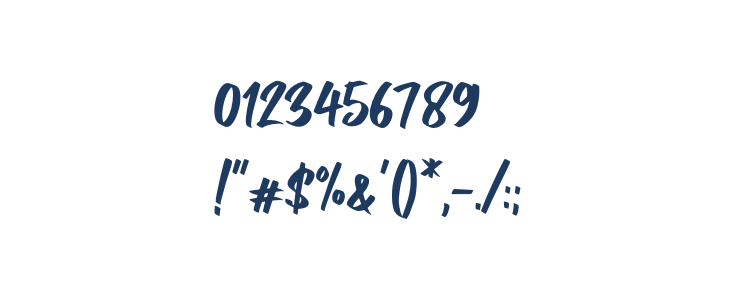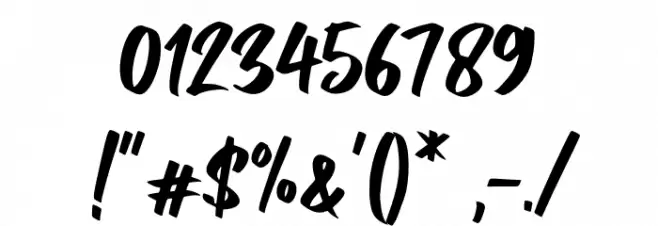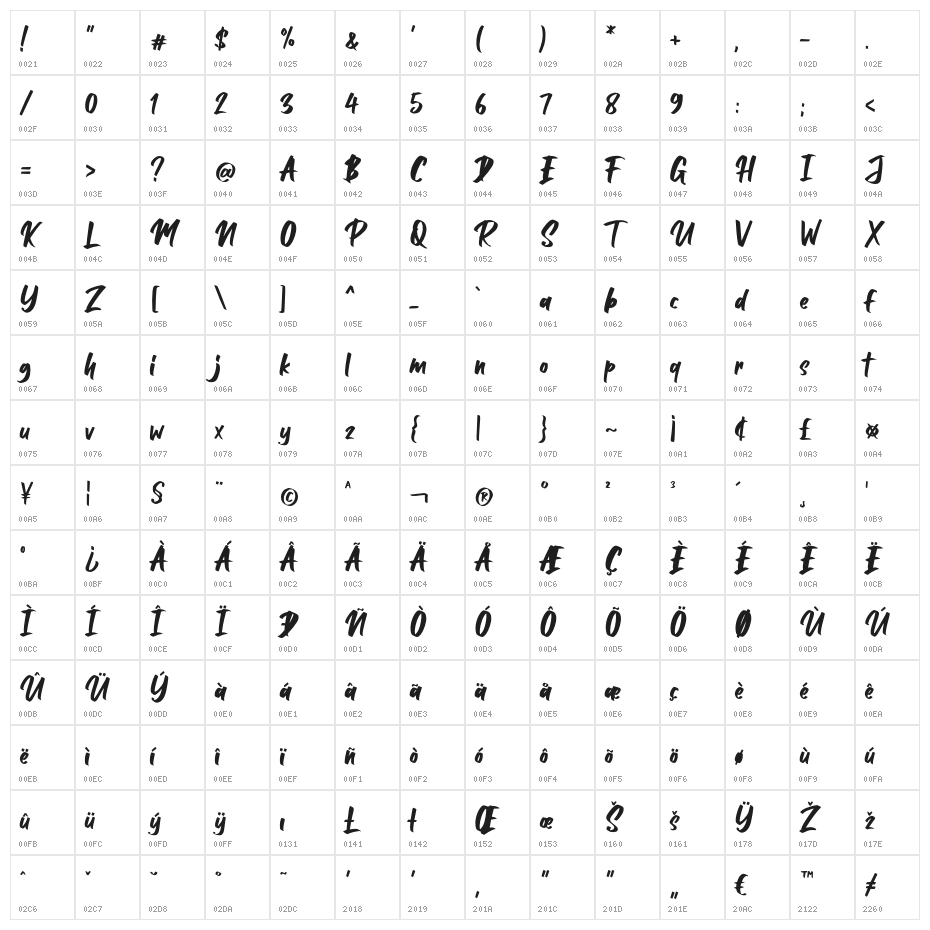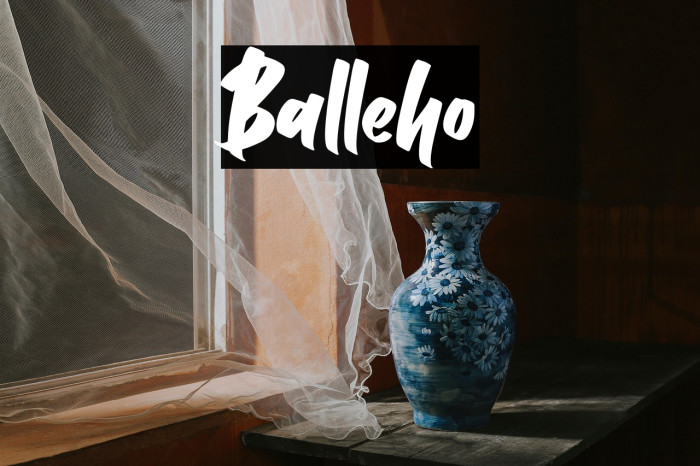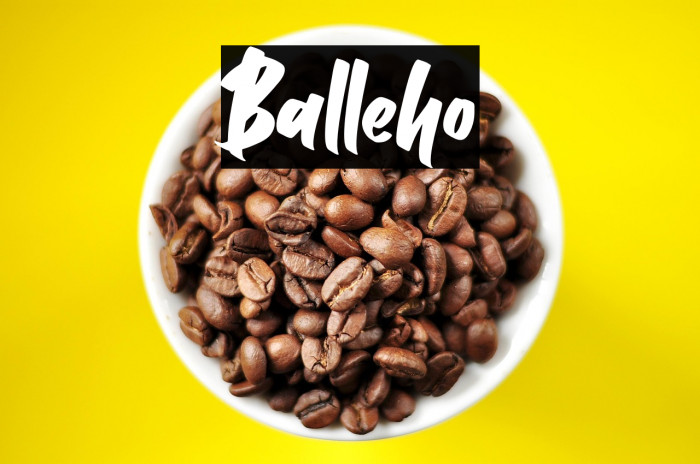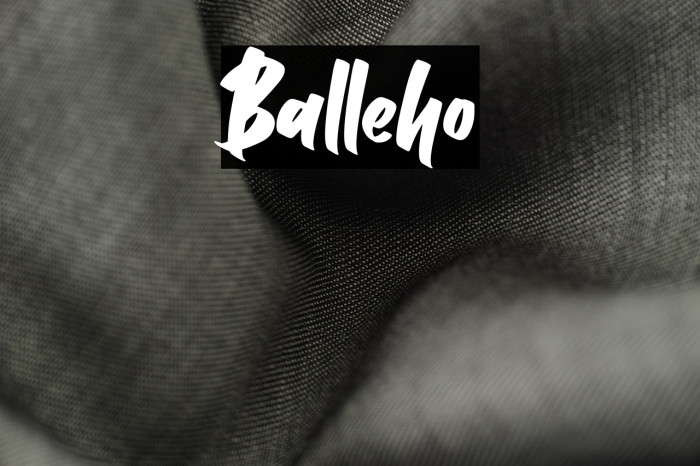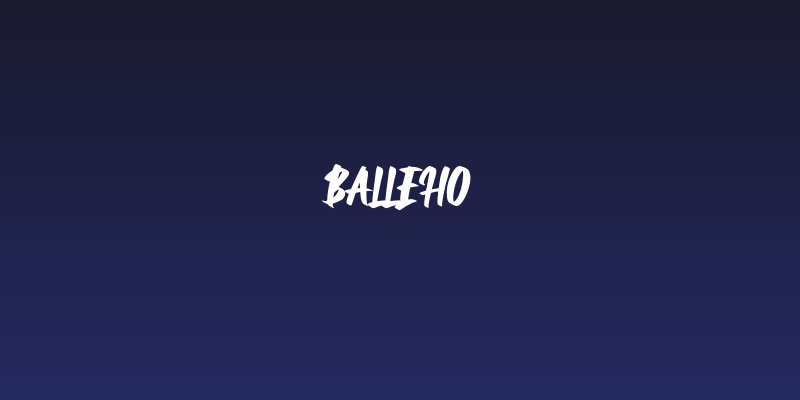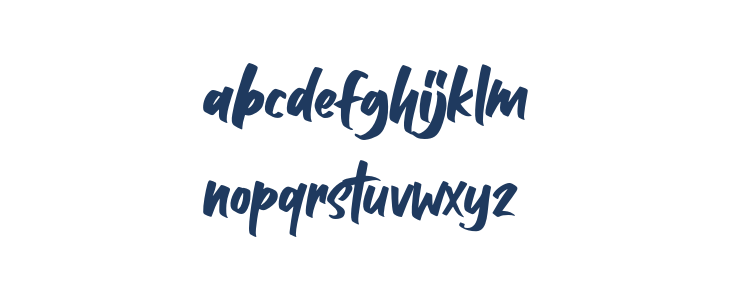
Balleho Font
Balleho Description
This font features a bold and expressive brush script style, characterized by its dynamic and fluid strokes. The letters have a hand-painted appearance, with varying thickness that adds a sense of movement and energy. The uppercase and lowercase characters maintain a cohesive look, with some letters having distinctive swashes and flourishes. The numbers and special characters are equally bold, ensuring consistency across all glyphs. This font is ideal for projects that require a personal and artistic touch, such as branding, posters, and invitations.
| Use Case | Logos, Headlines, Artistic designs |
| Proposed Projects | Ideal for branding, posters, invitations, and artistic designs. |